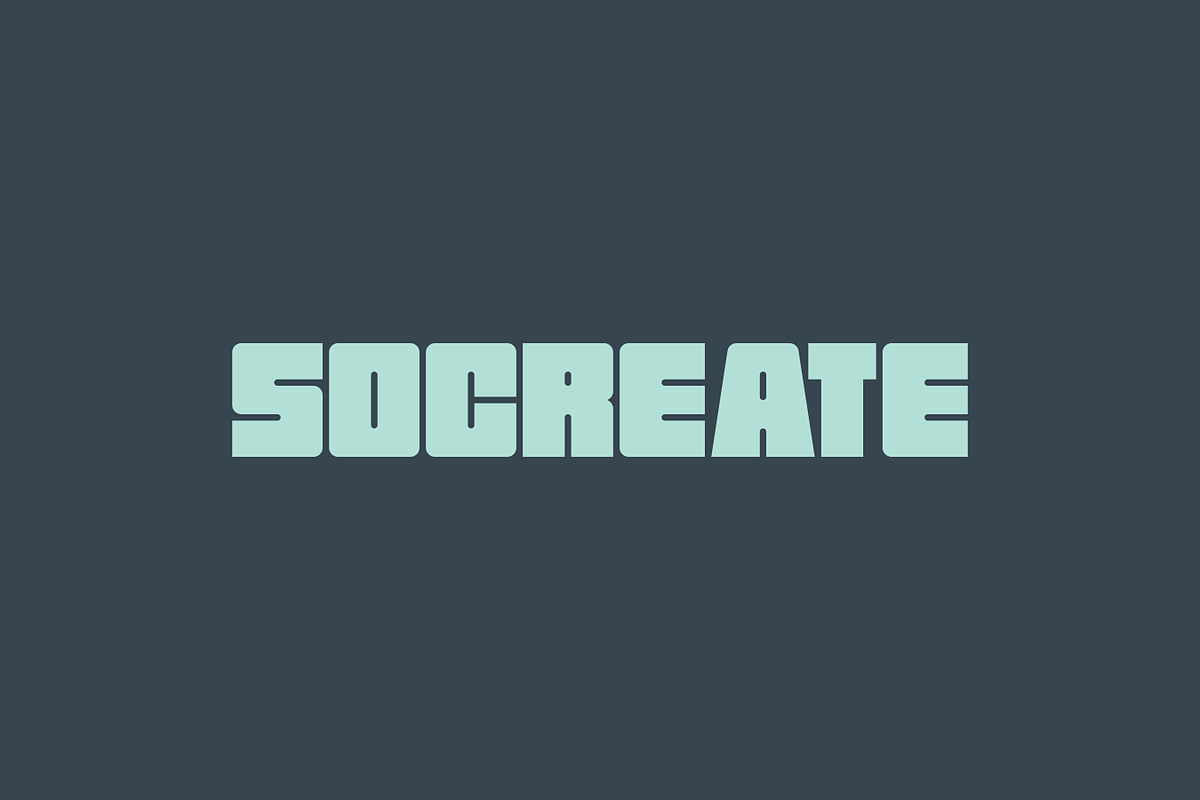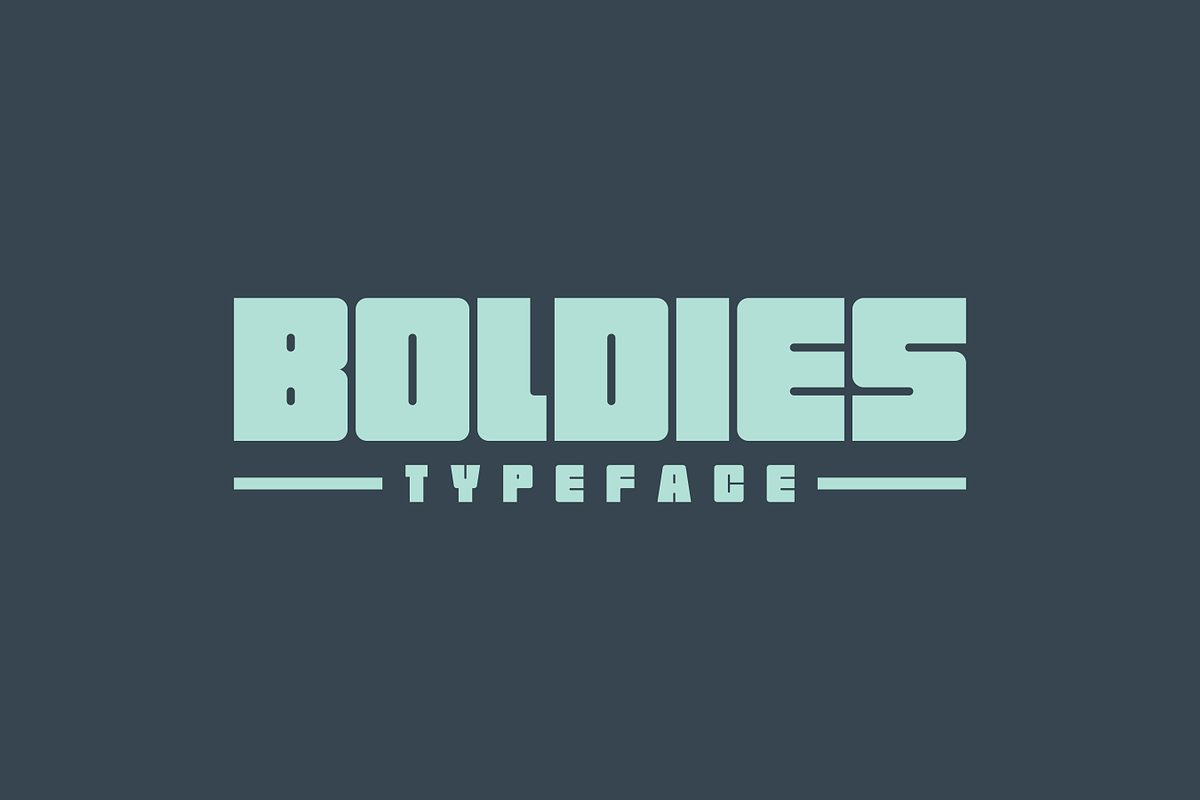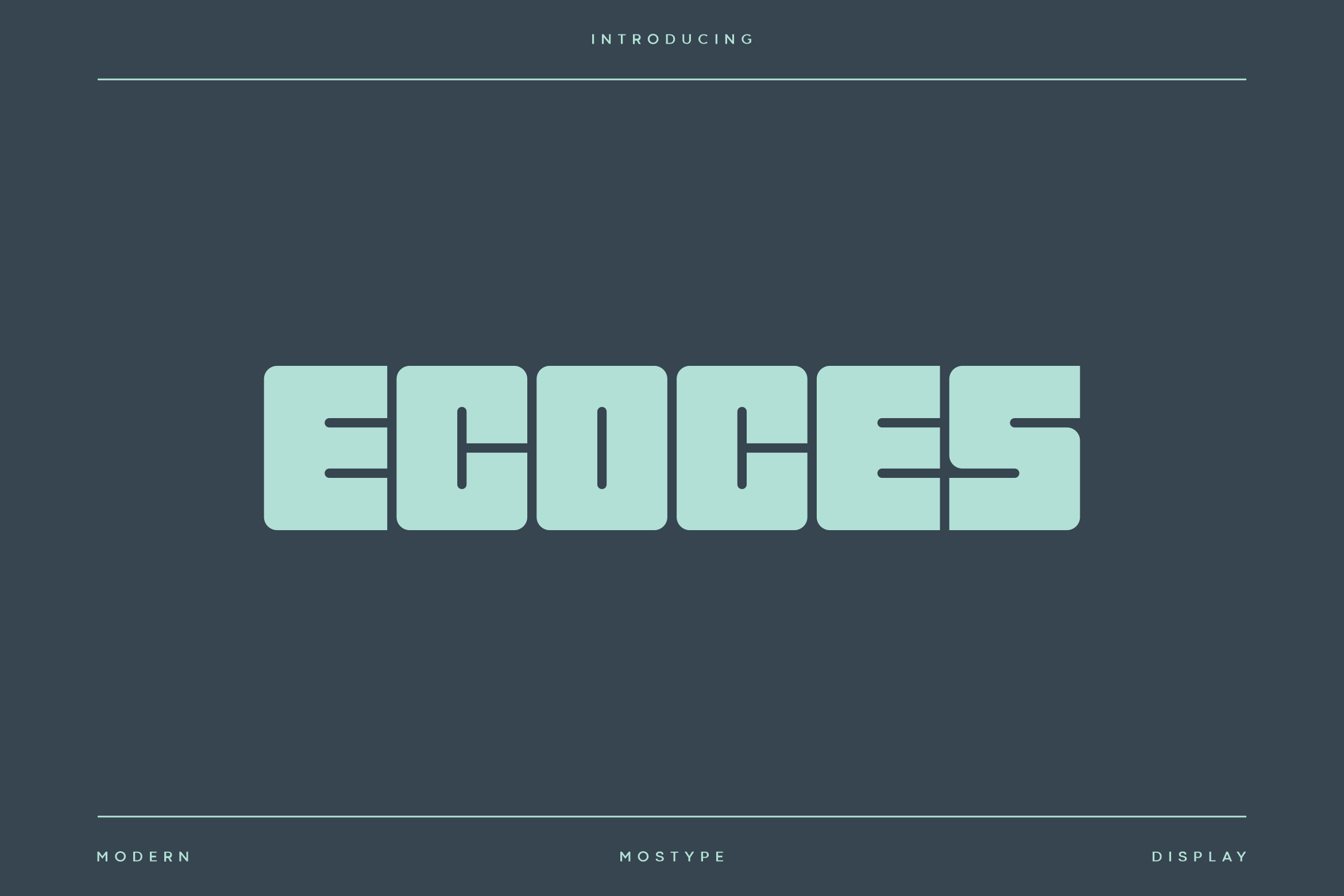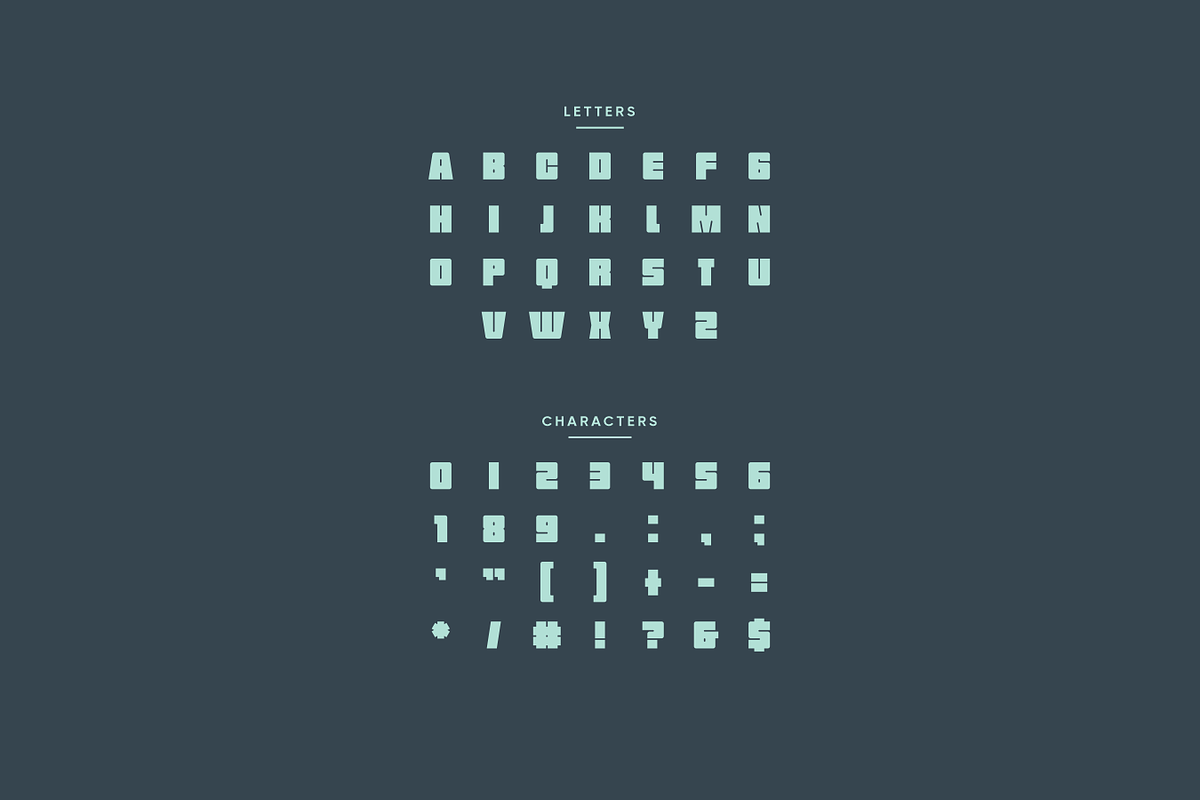
Ecoses - Modern Display Typeface
Introducing Ecoses Typeface! It's a bold sans-serif font that gives a gothic style. It is ideal for headlines, packaging, posters, and any design that requires bold font. Ecoses is perfect for headlines, logotypes, magazines, packaging, quotes, movies, games, cover albums, book covers, and flyers, it's a perfect solution for creating eye-catching designs that stand out in any context.